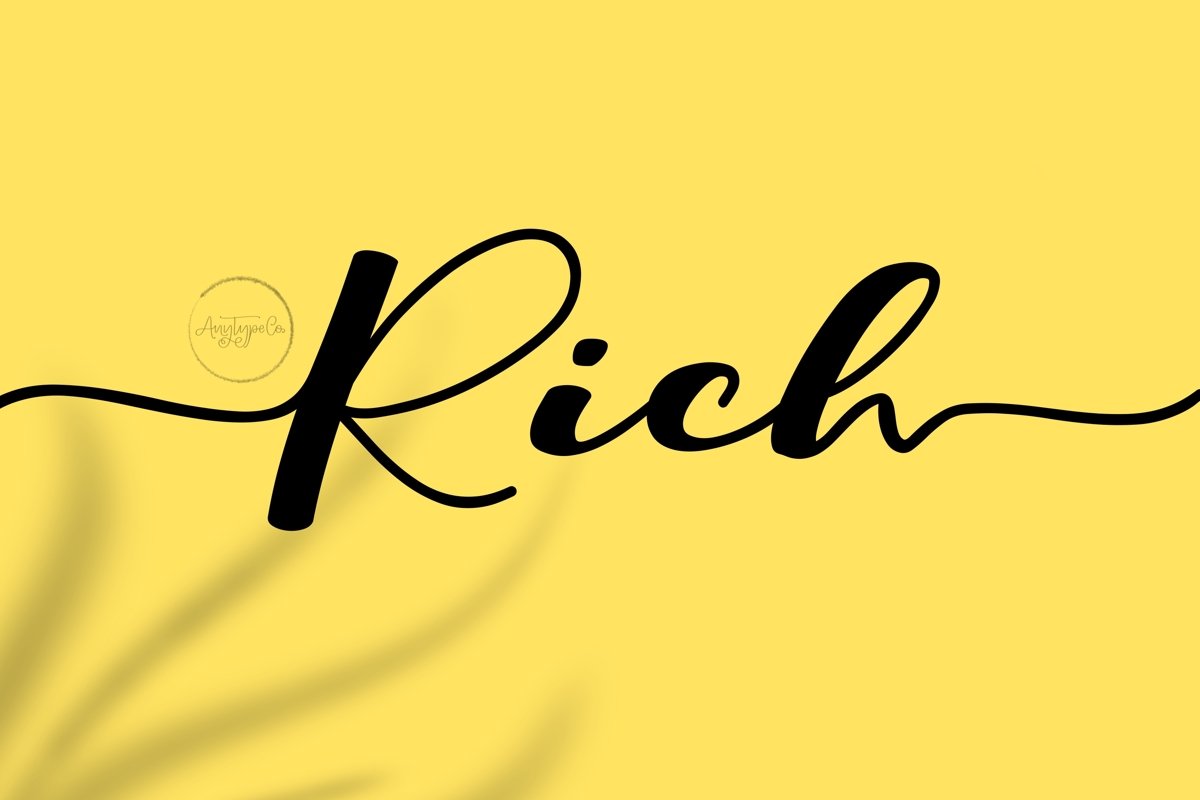
Rich // Script Typeface
Rich
**Rich**
Sweet, casual and versatile. Great for crafty design!
- Uppercases, Lowercases, Numerics, Symbols, Multilingual
- Alternates, Swashes, Ligatures